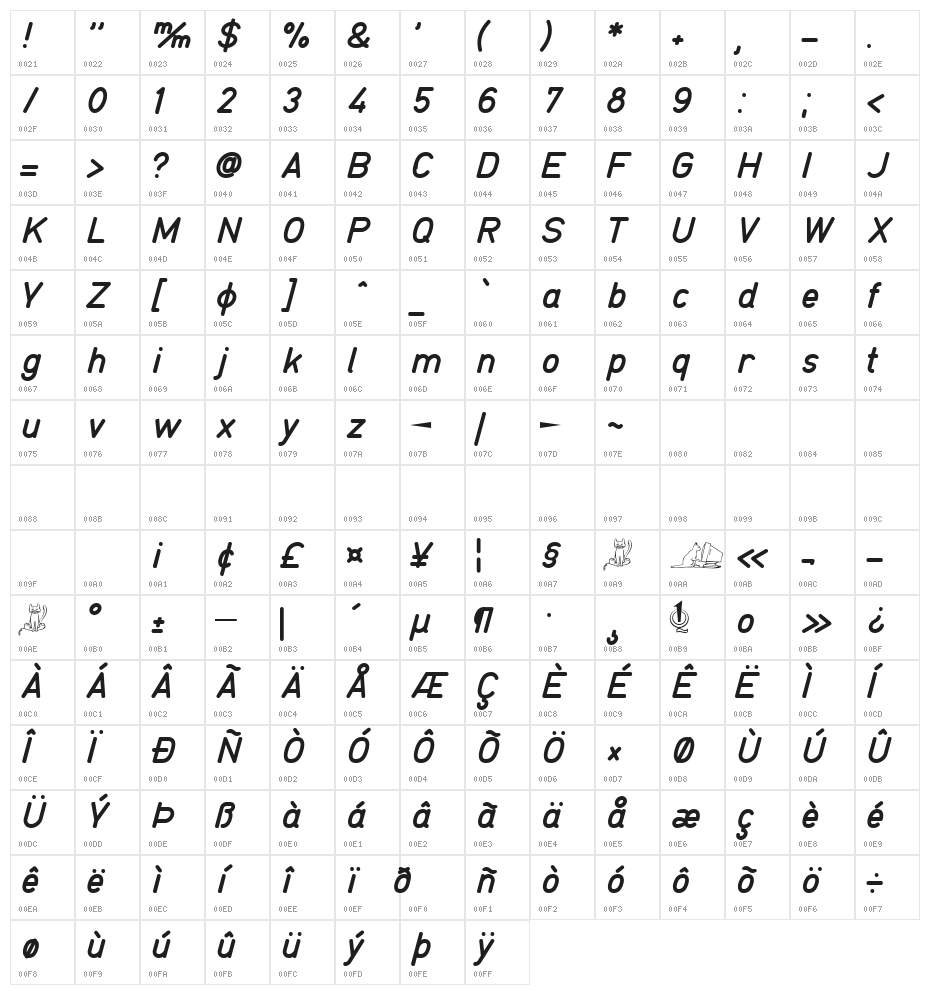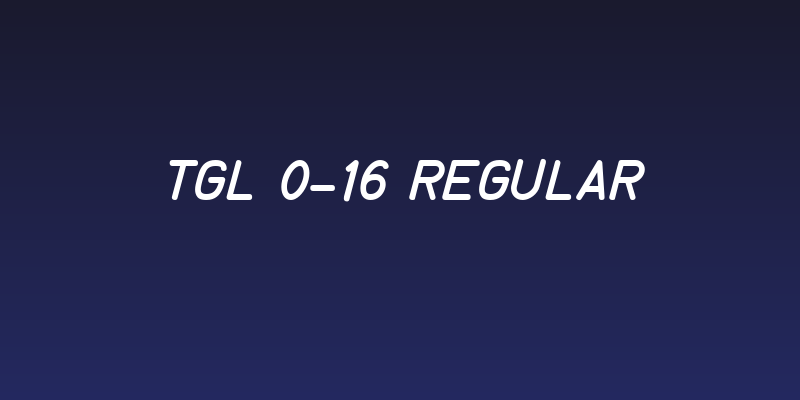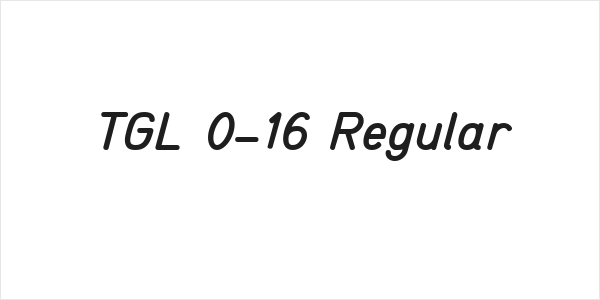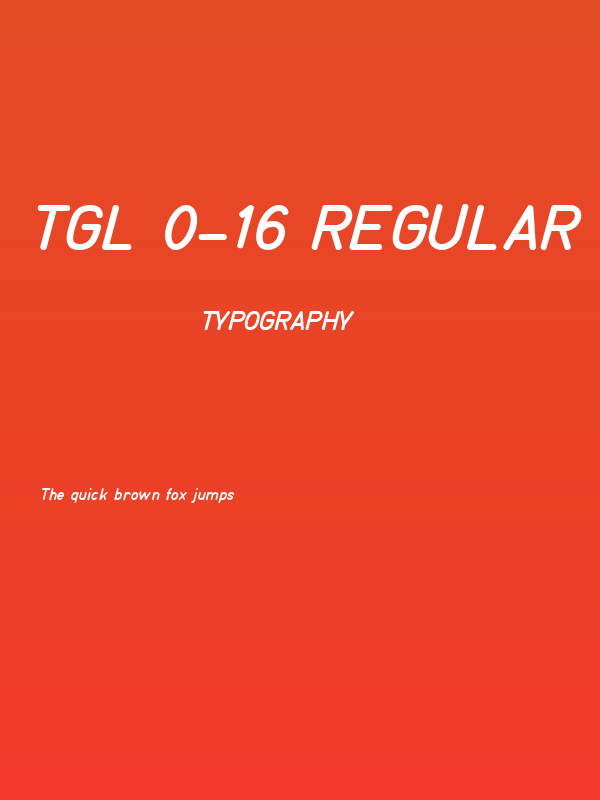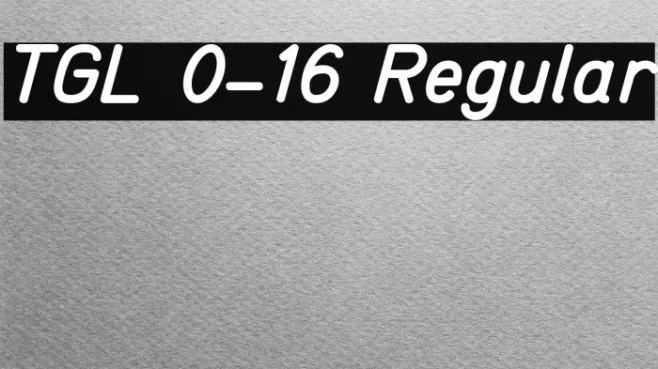
TGL 0-16 Regular Font
TGL 0-16 Regular Description
This font features a clean and modern design with smooth, rounded edges and a slight slant, giving it a dynamic and approachable feel. The characters are well-proportioned, with a consistent stroke width that maintains readability across various sizes. The uppercase and lowercase letters are distinct yet harmonious, and the numerals are clear and legible. Special characters are thoughtfully designed to match the overall style, making this font versatile for various applications.
| Proposed Projects | Ideal for branding, advertising, and digital content where a friendly and modern appearance is desired. |